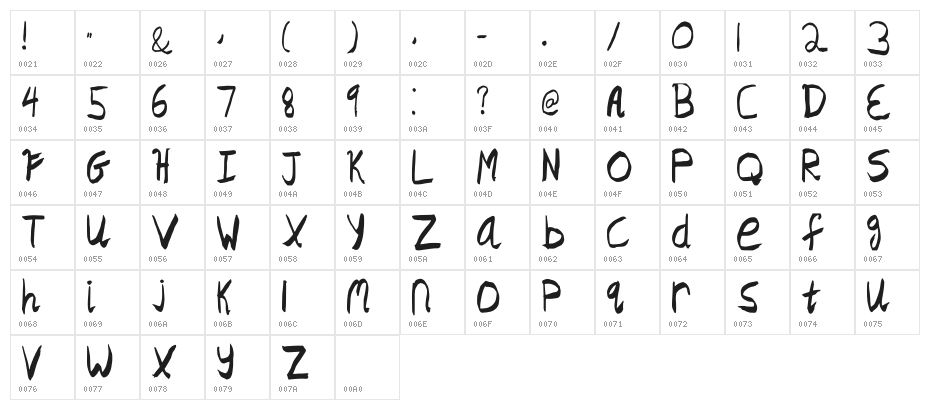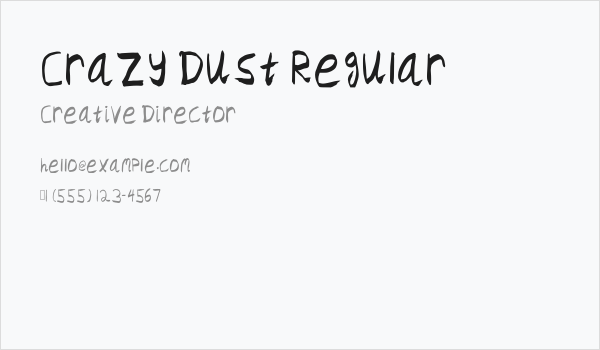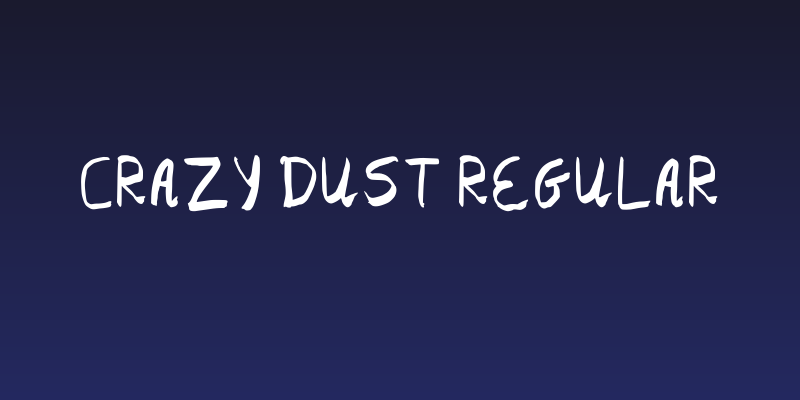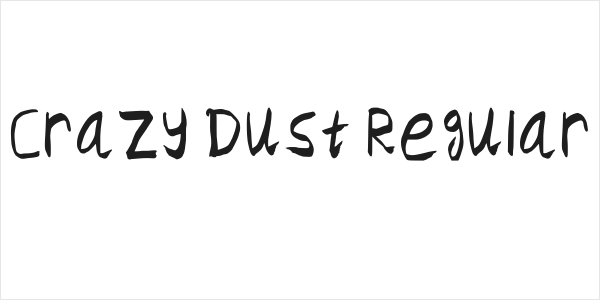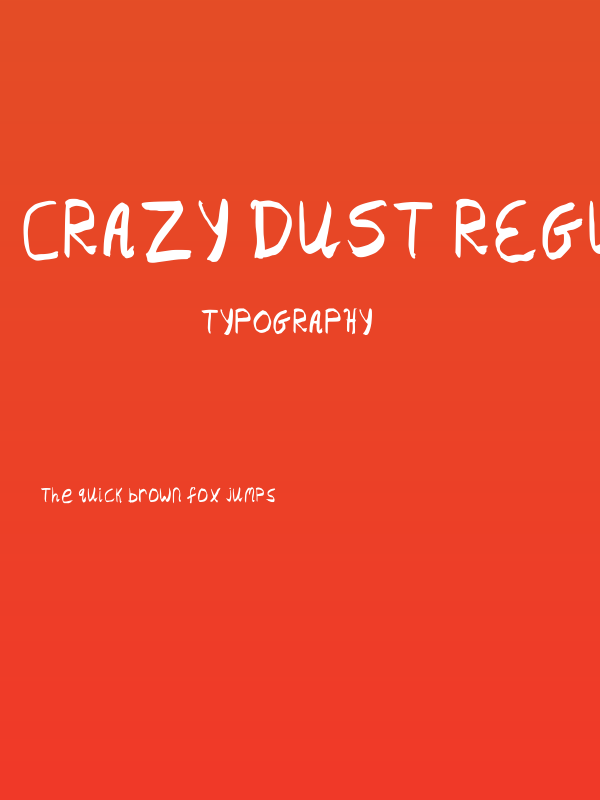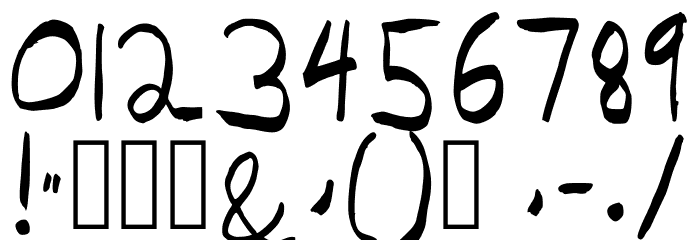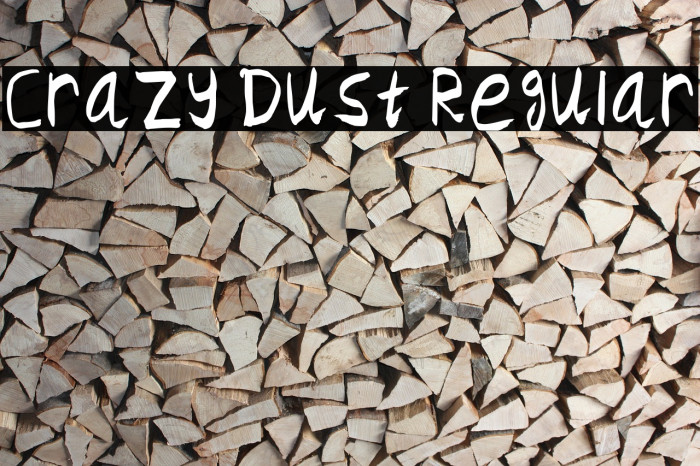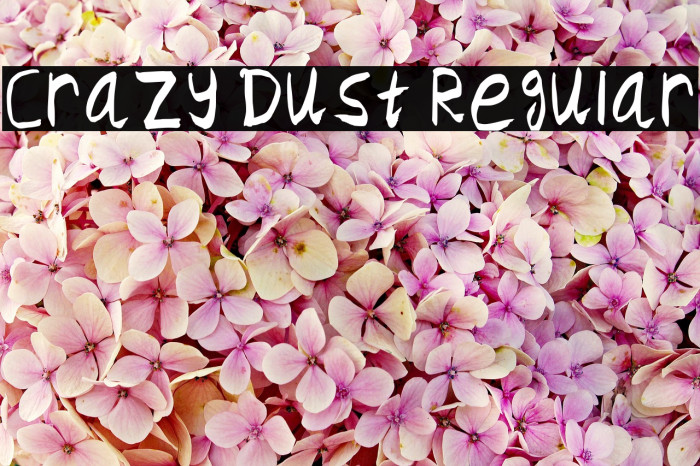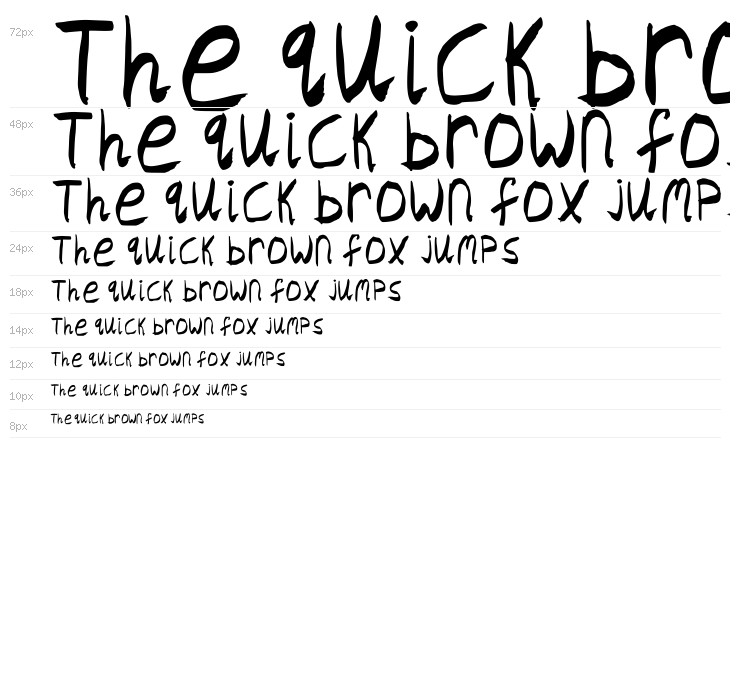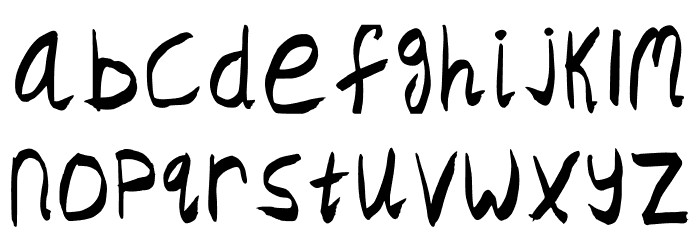
Crazy Dust Regular Font
Crazy Dust Regular Description
This font features a playful and energetic style, characterized by its irregular and hand-drawn appearance. The letters have a dynamic flow, with varying stroke thickness that adds a sense of movement and spontaneity. The uppercase and lowercase letters maintain a consistent style, while the numbers and special characters complement the overall whimsical feel. The font's unique design makes it stand out, offering a creative and artistic touch to any project.
| Proposed Projects | Ideal for creative projects such as children's books, playful branding, artistic posters, and casual invitations. |